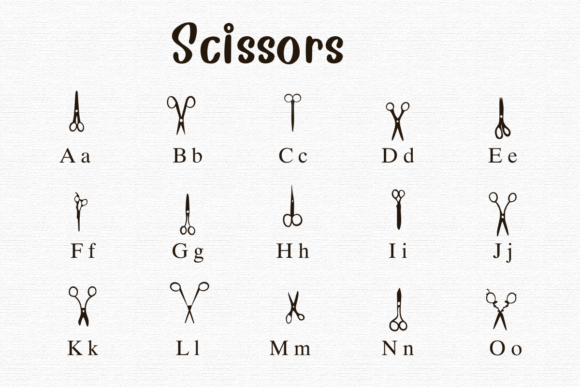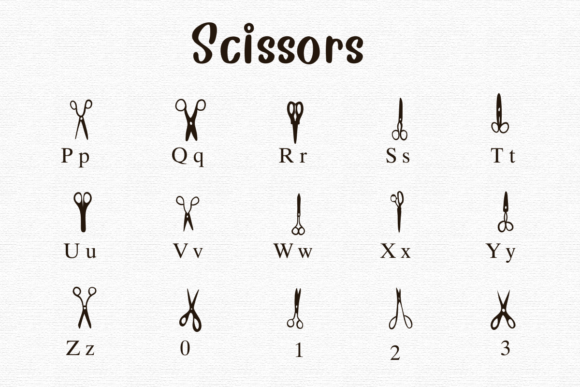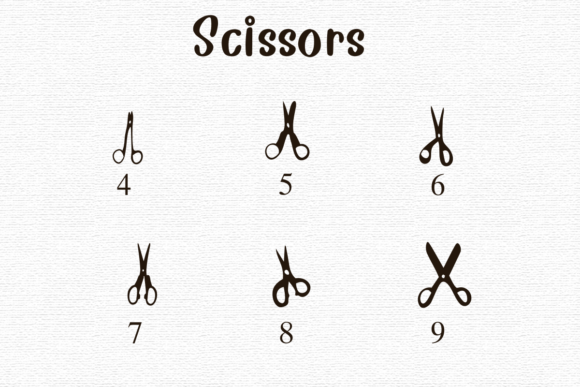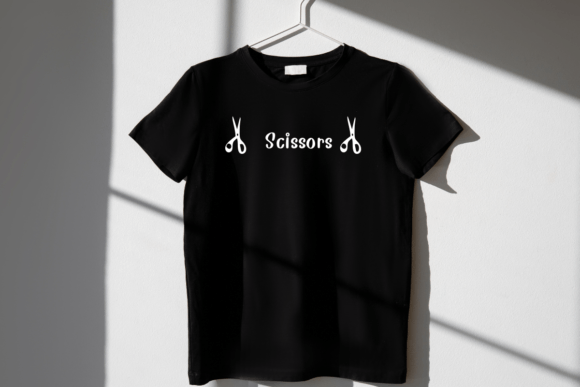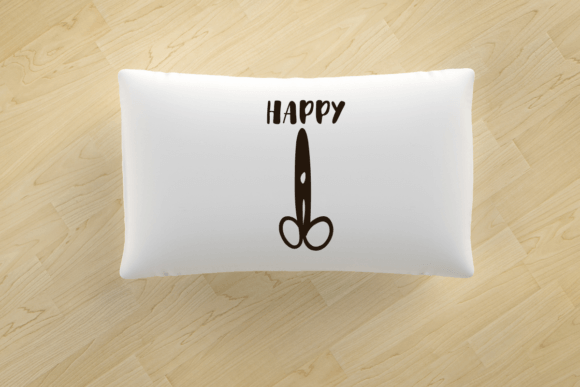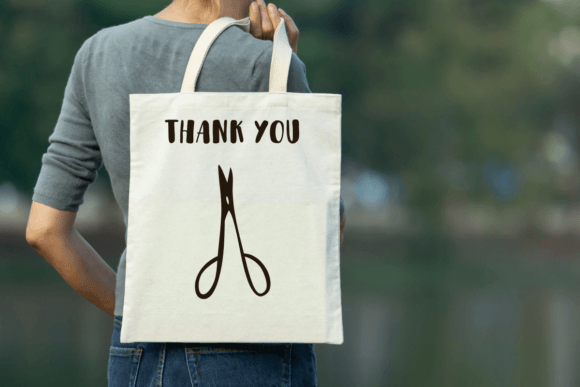
Introduction to Scissors Font
Remember that moment when you were rummaging through your grandma’s sewing box, fascinated by the different types of scissors that lay before you? Each pair had its own unique character, from the delicate embroidery scissors to the heavy-duty pruning shears. That’s exactly the kind of charm and character that the Scissors Font brings to the table – or should I say, to your next creative project!
As a designer, you’re always on the lookout for that perfect design resource to elevate your work. And if you’re working on a project related to cutting and trimming, the Scissors Font is a high-quality addition to your arsenal. With its transparent background and wide range of scissor designs, this font is a free download that’s sure to cut through the noise and leave a lasting impression.
- Unique, creative design suitable for various projects, including invitations, logos, and advertisements.
- Perfect design resource for creative projects, offering a unique and stylish look.
Honest Review: Scissors Font
As a designer, I’ve had the chance to work with a variety of fonts, but the Scissors Font has caught my attention lately. I downloaded it for free and was excited to see how it would perform in my creative project.
First, let’s talk about the good stuff. ✨ The Scissors Font is incredibly versatile, and its unique design makes it perfect for adding a touch of whimsy to any project. The transparent background feature is also a game-changer, allowing me to easily layer my designs without worrying about backgrounds clashing.
However, there are a few limitations to keep in mind. ⚠️ The font can be a bit difficult to read in smaller sizes, and some users may find the unique design style a bit too quirky for their taste. Additionally, the font’s bold weight can be a bit too overpowering at times.
Overall, I’m impressed with the Scissors Font and would recommend it to designers looking for a creative and high-quality font to add some flair to their projects.